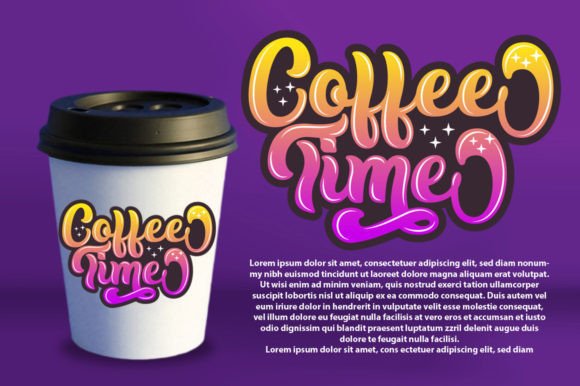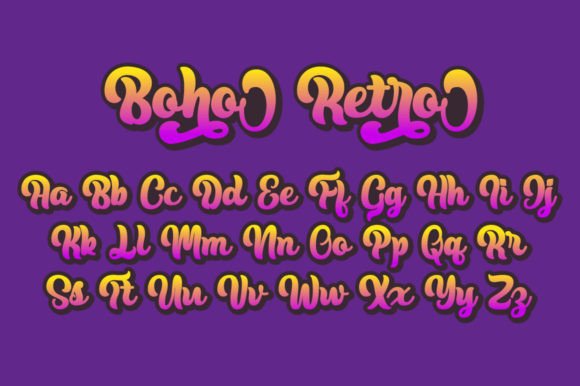
Boho Retro Font
Boho Retro is a hip and nostalgic font that seamlessly blends vintage and modern styles. The fluid, brush-like script pairs perfectly with the bold display font, making it perfect for eye-catching designs. This font is perfect for adding a touch of retro cool to any project.